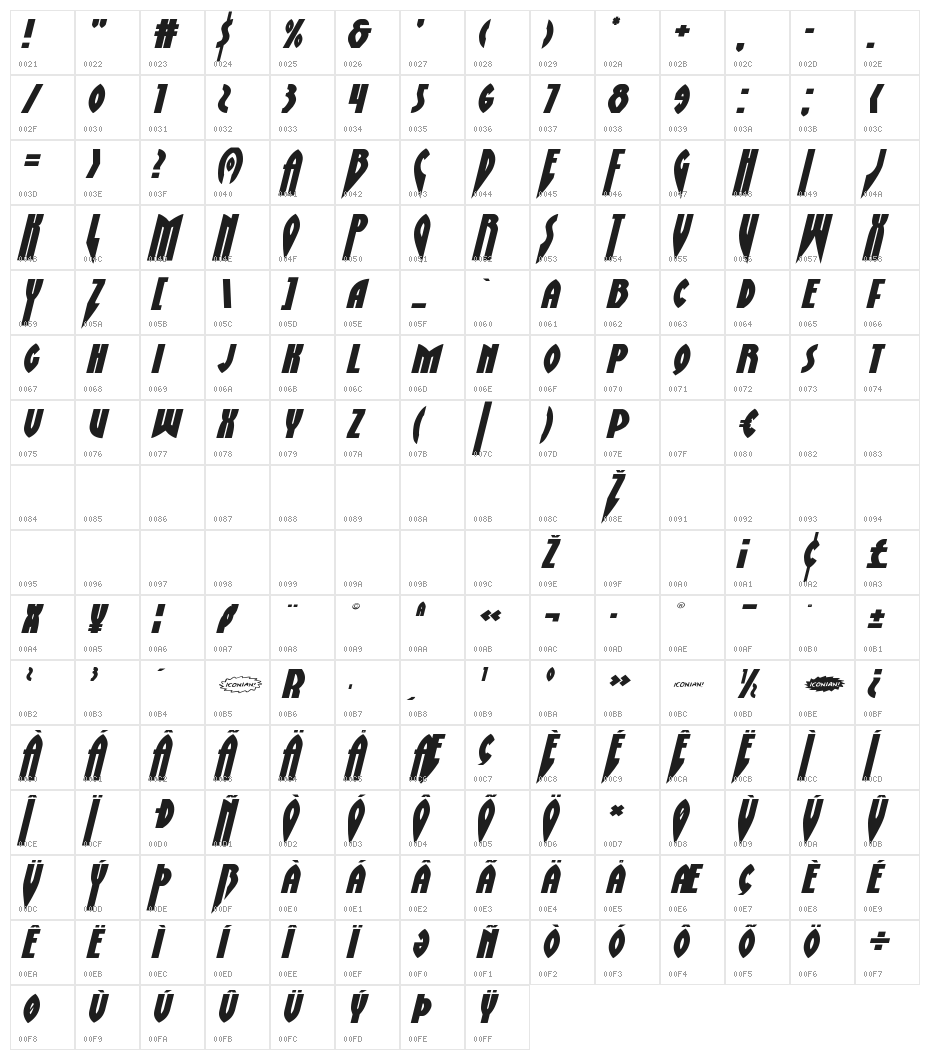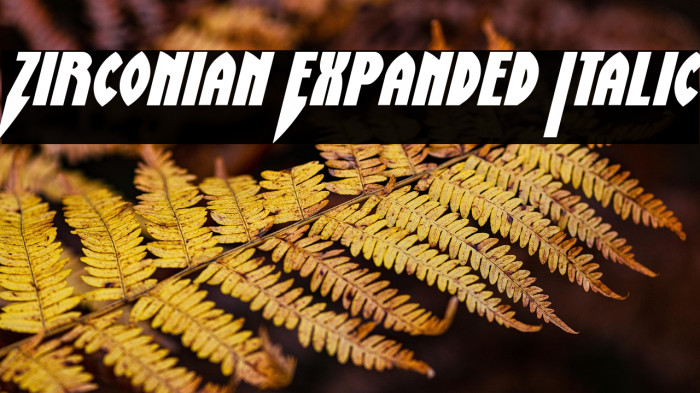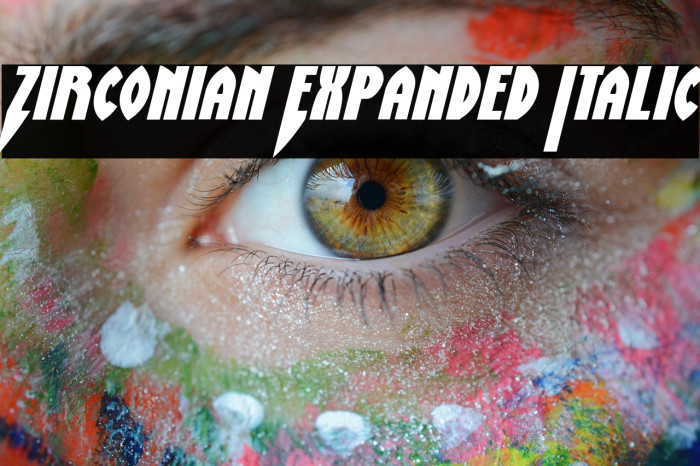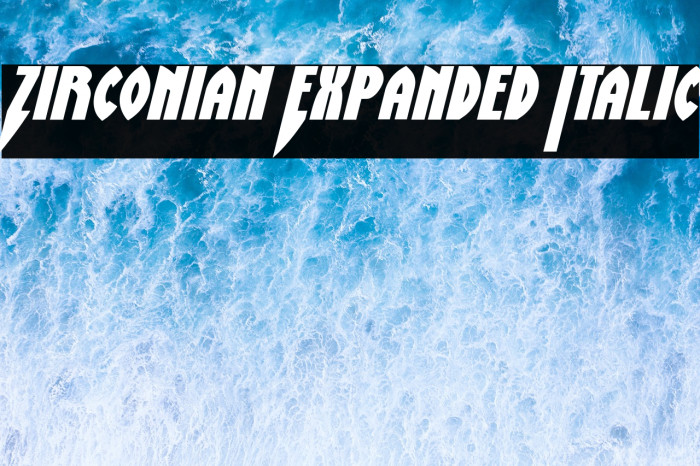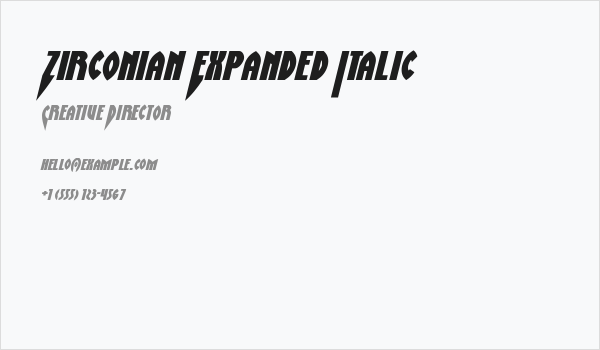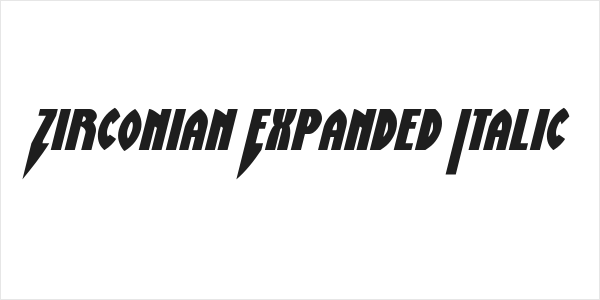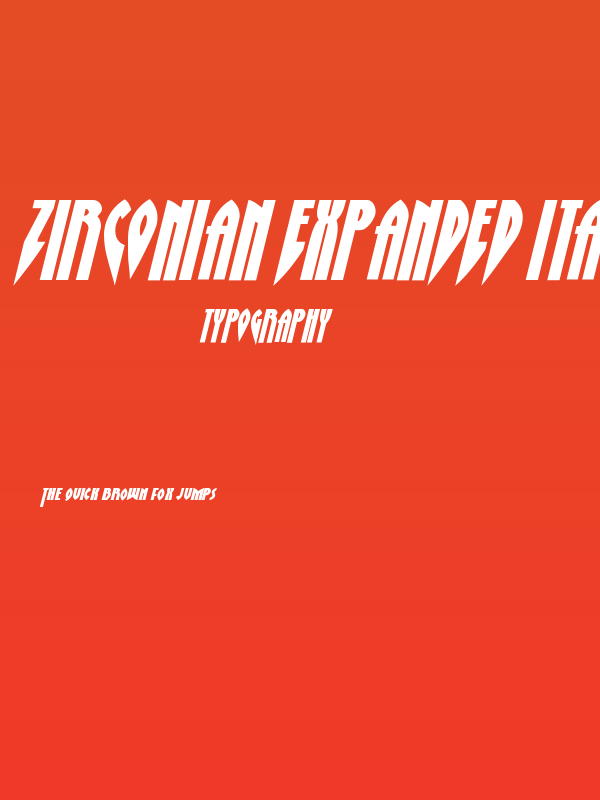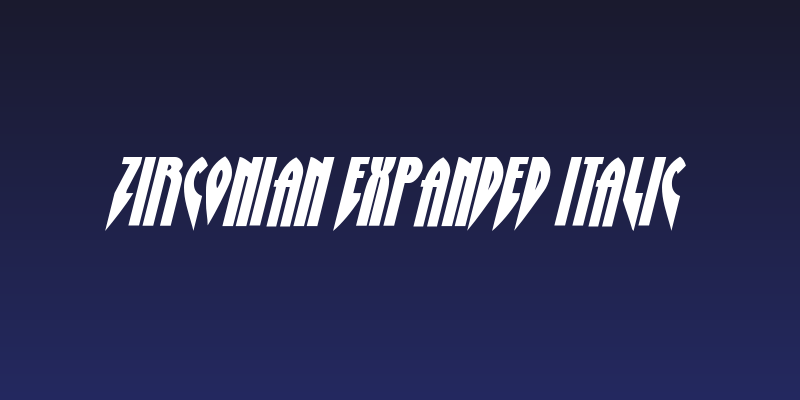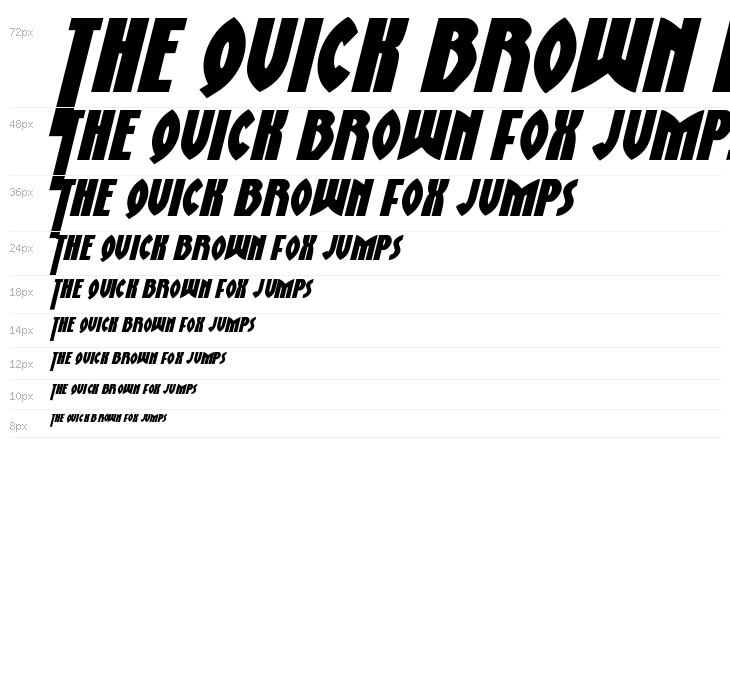
Zirconian Expanded Italic Font
Zirconian Expanded Italic Description
This font features a bold and dynamic design with an italicized slant, giving it a sense of movement and energy. The characters are expanded, providing a wide and impactful appearance. The strokes are thick and consistent, contributing to a strong visual presence. The uppercase and lowercase letters maintain a cohesive style, while the numerals and special characters are designed to match the overall aesthetic. This font is ideal for making a statement and capturing attention with its unique and powerful look.
| Proposed Projects | Ideal for posters, headlines, branding, and any project requiring a bold and energetic typeface. |